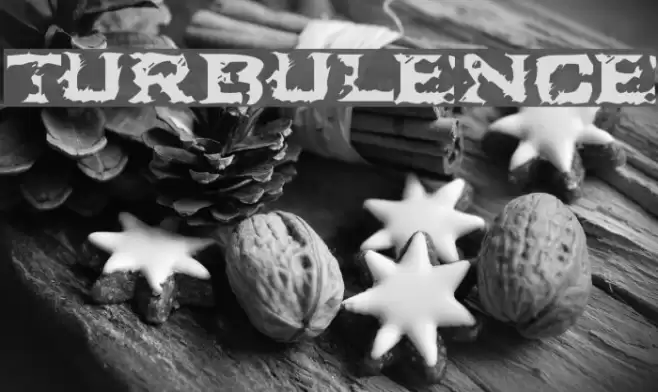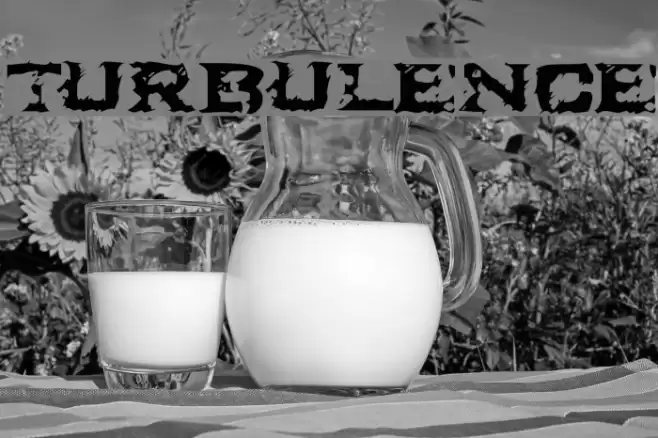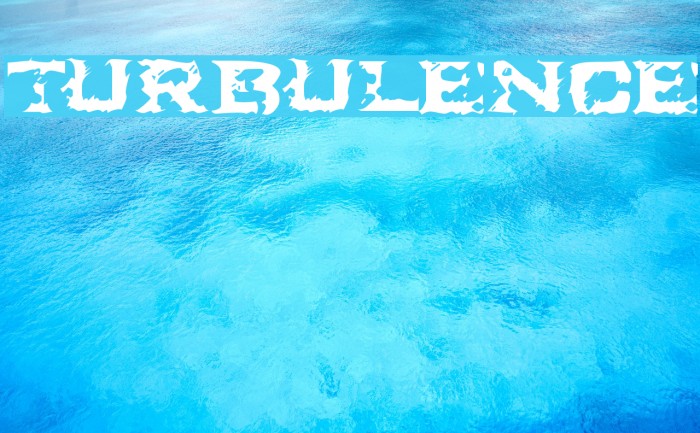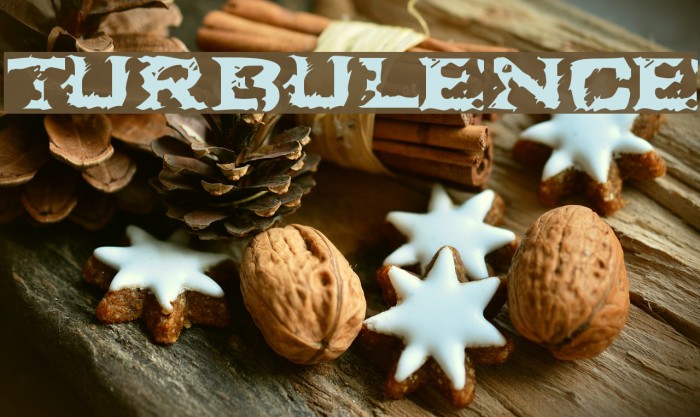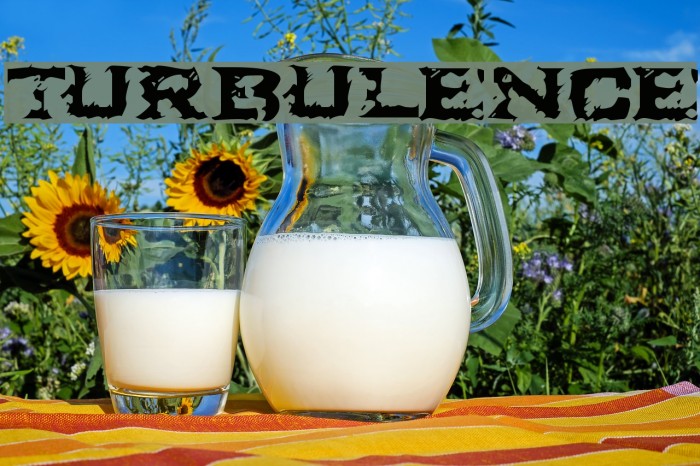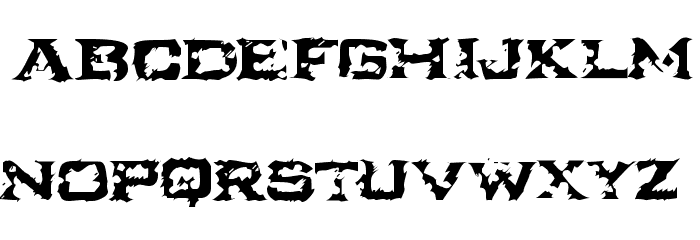
Turbulence Font
Turbulence Description
This font features a rugged, distressed style with jagged edges and irregular shapes, giving it a chaotic and turbulent appearance. The uppercase letters are bold and impactful, with a sense of movement and energy. The font's unique design makes it stand out, with each character appearing as if it has been weathered or eroded over time. This creates a dynamic and edgy look that is perfect for projects needing a dramatic and eye-catching typeface. The font's aesthetic is reminiscent of grunge or urban styles, making it suitable for creative and unconventional designs.
A bold, distressed font with jagged edges and a chaotic, energetic style from Distorted Eroded fonts.
- Proposed Projects: Ideal for album covers, movie posters, event flyers, or any project requiring a bold, edgy aesthetic.